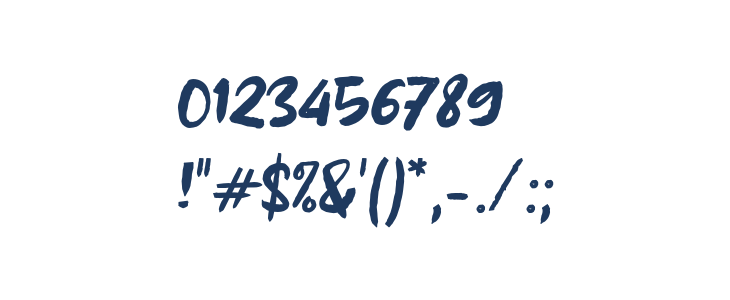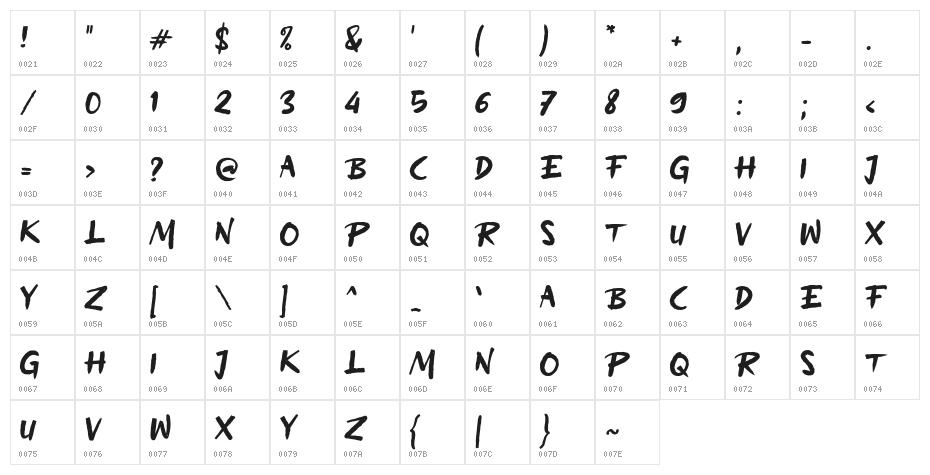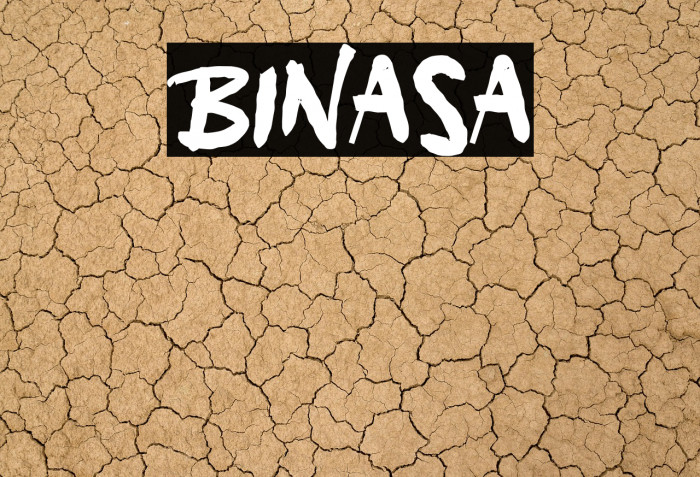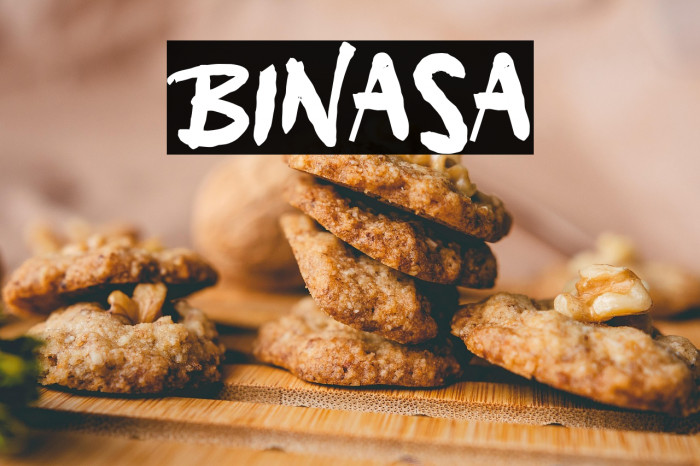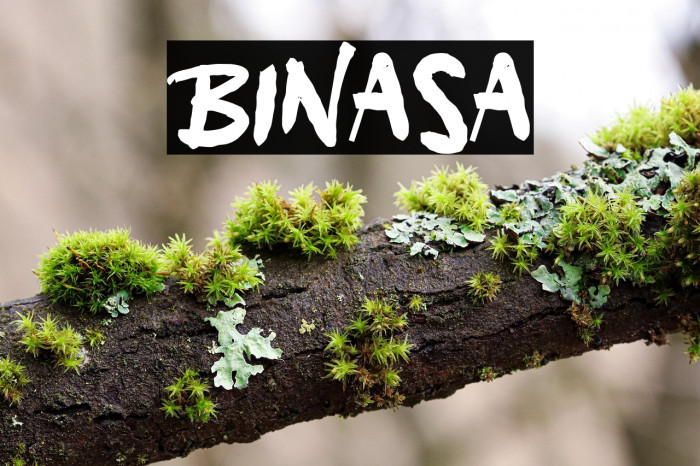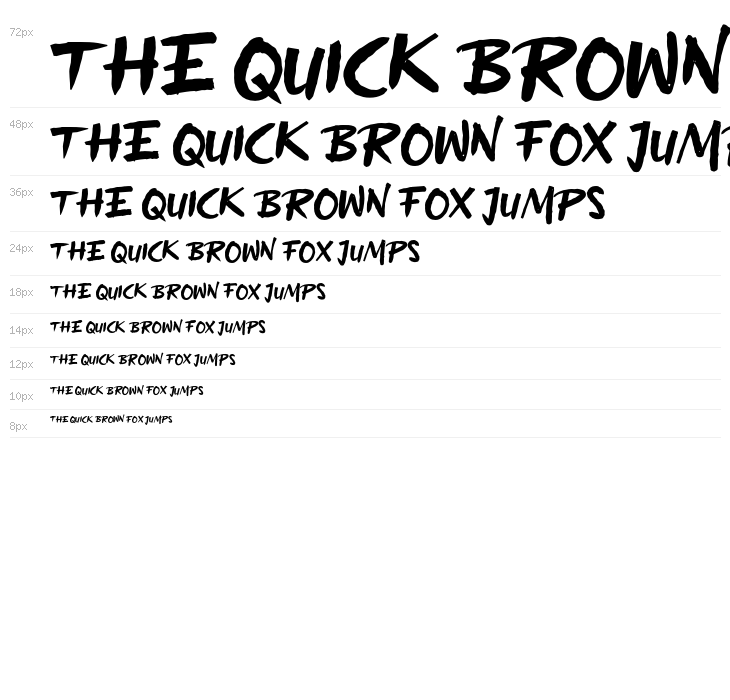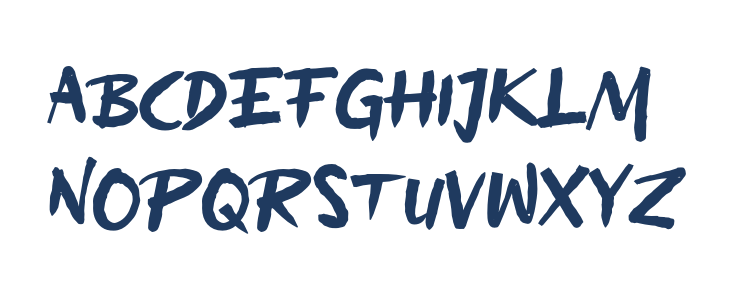
Binasa Font
Binasa Description
This font exhibits a bold and dynamic handwritten style, characterized by its brush-like strokes and energetic appearance. The uppercase and lowercase letters maintain a consistent flow, with slightly irregular edges that add to its organic feel. The numerals and special characters follow the same aesthetic, ensuring a cohesive look across all glyphs. The font's boldness and expressive nature make it stand out, while its informal style conveys a sense of creativity and spontaneity. It's well-suited for projects that require a personal touch or a lively, engaging visual impact.
| Proposed Projects | Ideal for branding, packaging, posters, and social media graphics where a personal and lively touch is desired. |